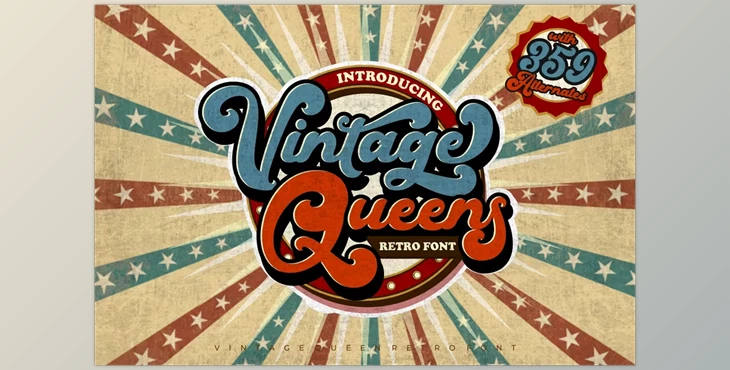
Vintage Queens - Retro Bold Script Font:
Introducing Vintage Queens, a bold vintage script that channels the retro typography and lettering of the 70s and 80s with a contemporary twist. Featuring a total of 534 glyphs and 359 alternatives, this font offers endless possibilities for creative letter combinations. Its open style, boasting various variations and slashes, allows for stunning lettering compositions.
Vintage Queens is the perfect choice for logos, headlines, covers, posters, quotes, product packaging, social media content, greeting cards, and much more. With support for multiple languages, it ensures versatility across various design projects.
Some great features of Vintage Queens - Retro Bold Script Font:
- Capital letters
- Lowercase letters
- Alternatives
- Numbers, punctuation, and symbols
- Multilingual support